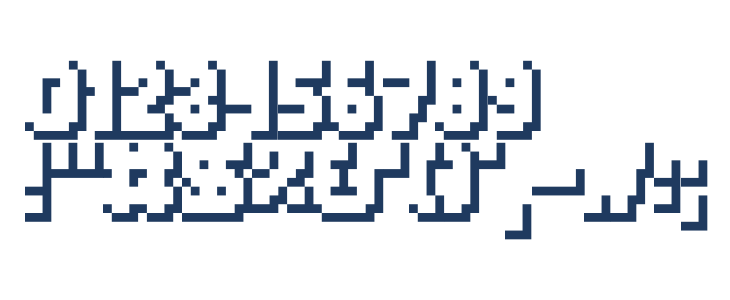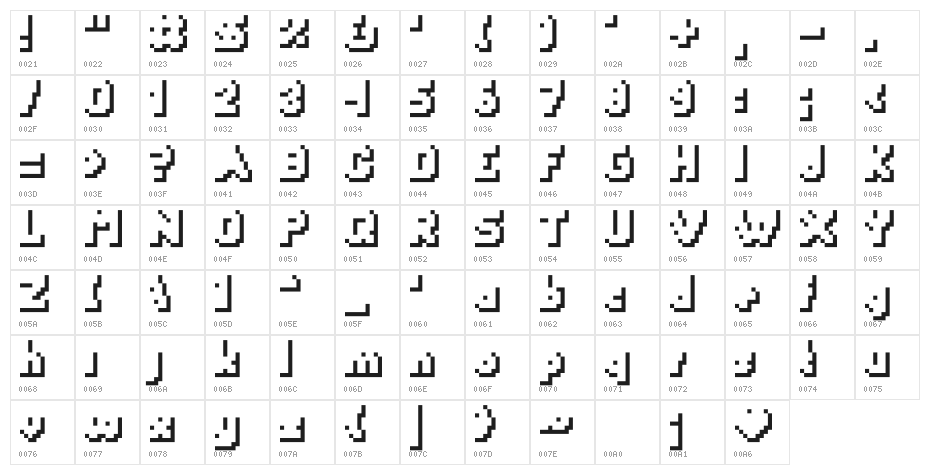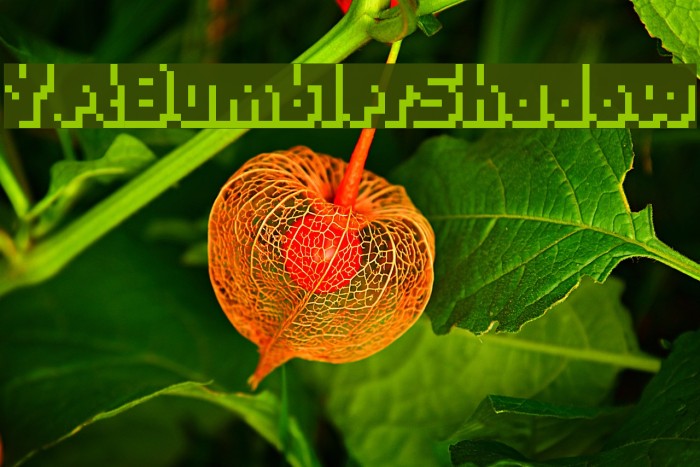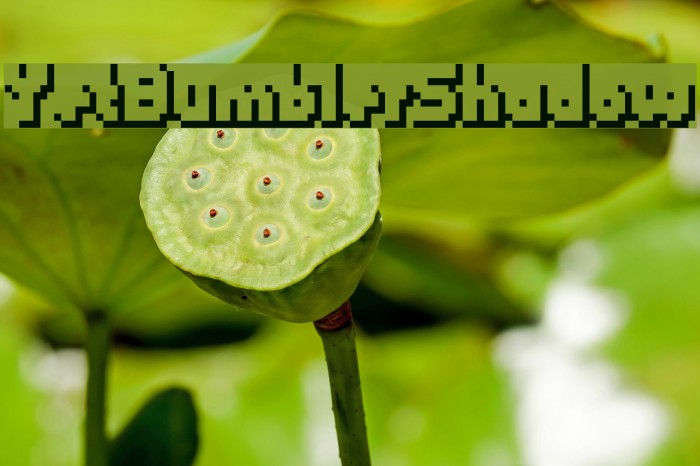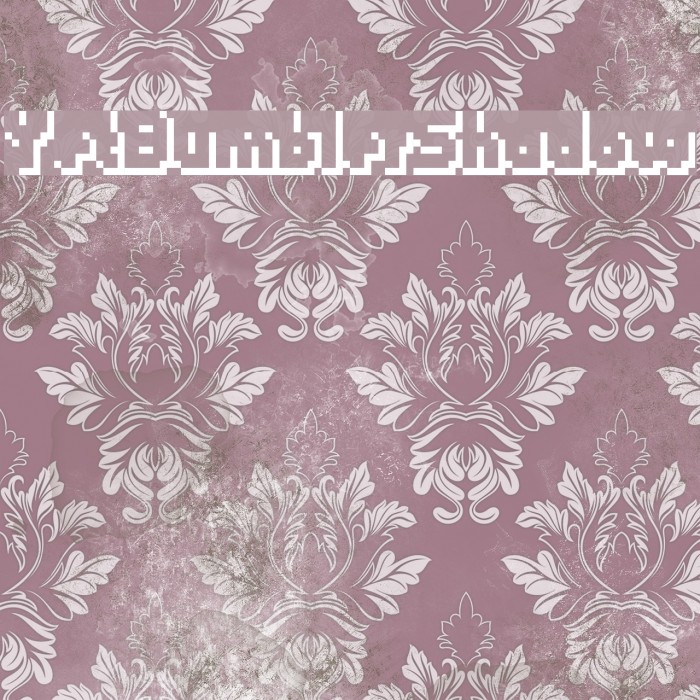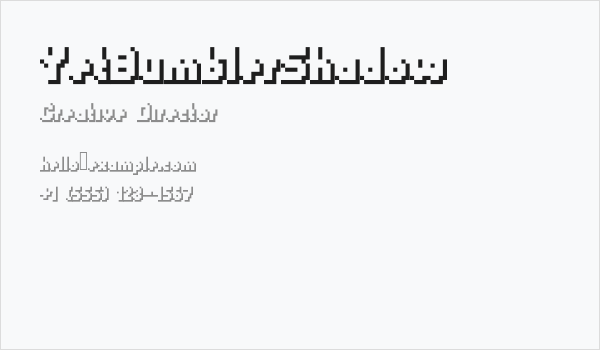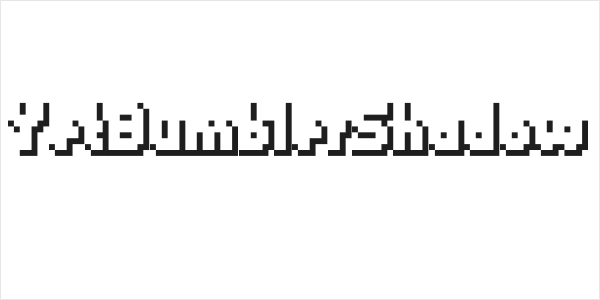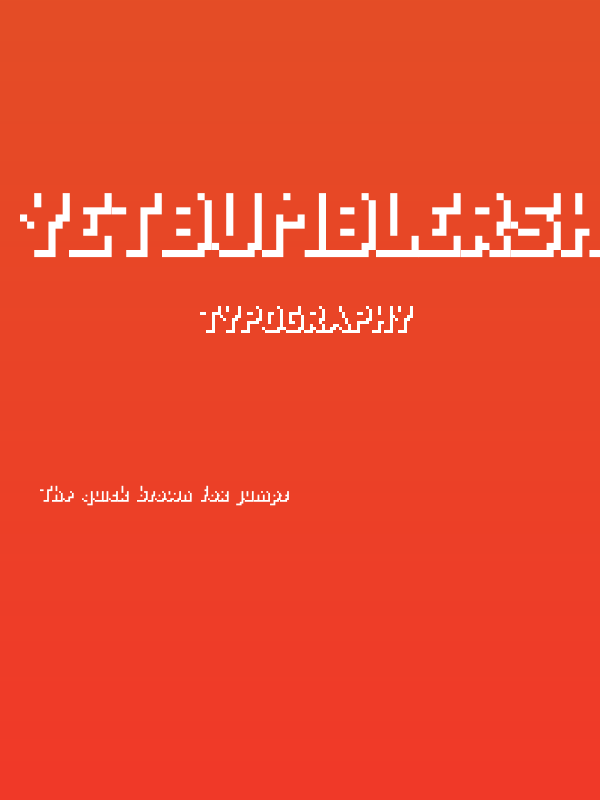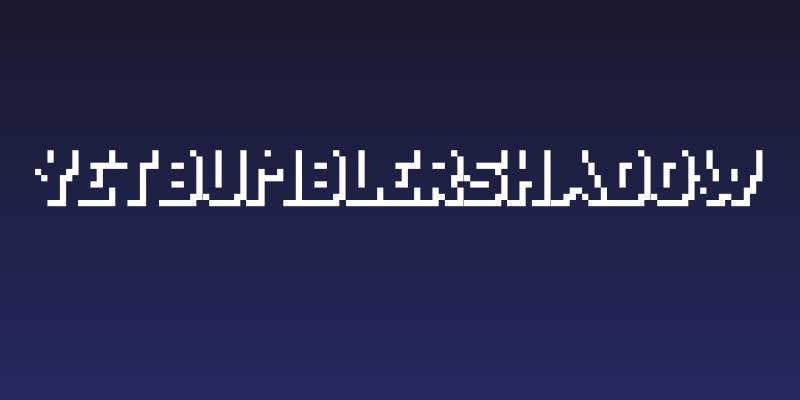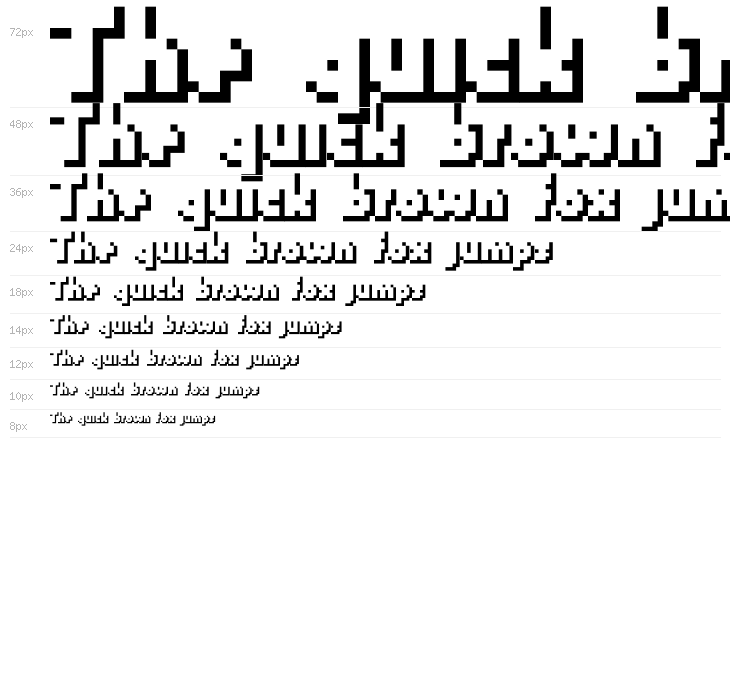
YetBumblerShadow Font
YetBumblerShadow Description
This font features a pixelated, blocky style reminiscent of early digital or video game typography. Each character is composed of distinct square blocks, giving it a retro, digital aesthetic. The uppercase and lowercase letters maintain a consistent height, with sharp angles and no curves, enhancing its geometric appearance. The numerals and special characters follow the same design principles, ensuring uniformity across all glyphs. This font's unique style is both nostalgic and modern, making it suitable for projects that aim to capture a vintage digital feel.
| Overall Style | Retro, Digital |
| Use Case | Headlines, Logos, Digital Art |
| Proposed Projects | Ideal for video game design, digital art projects, retro-themed posters, and tech-related branding. |